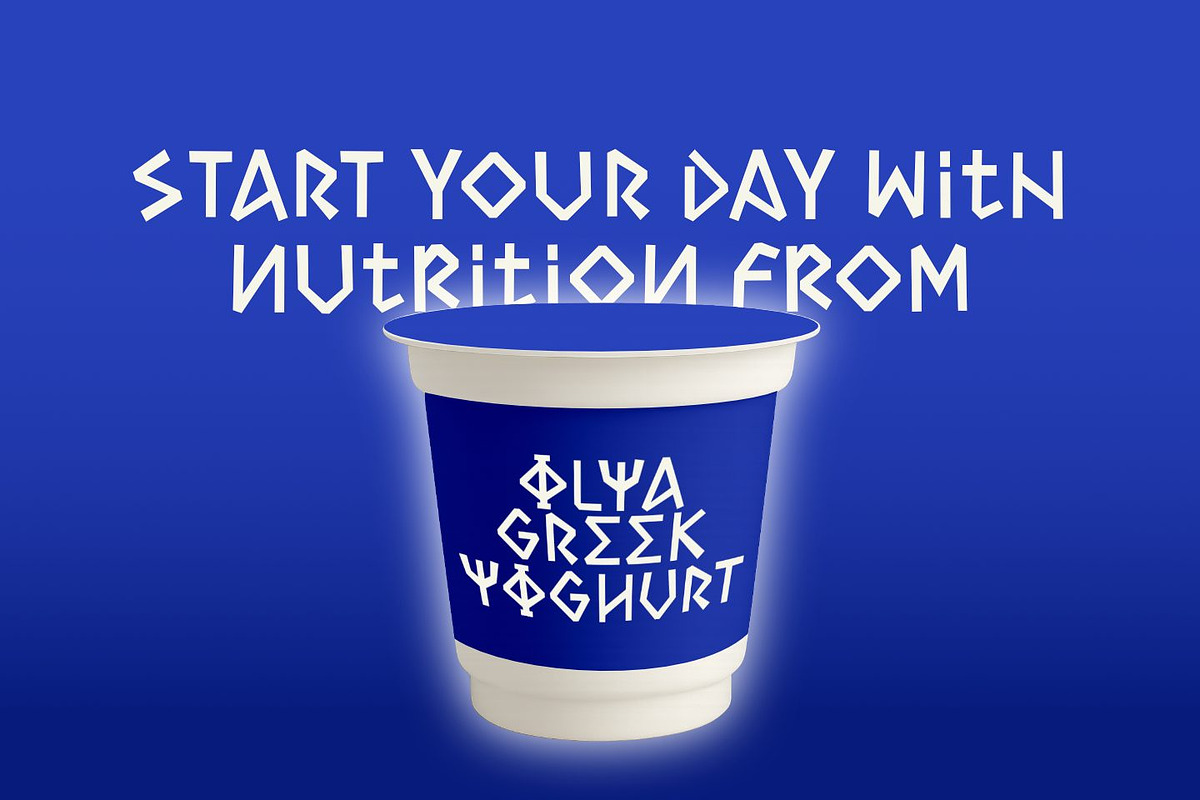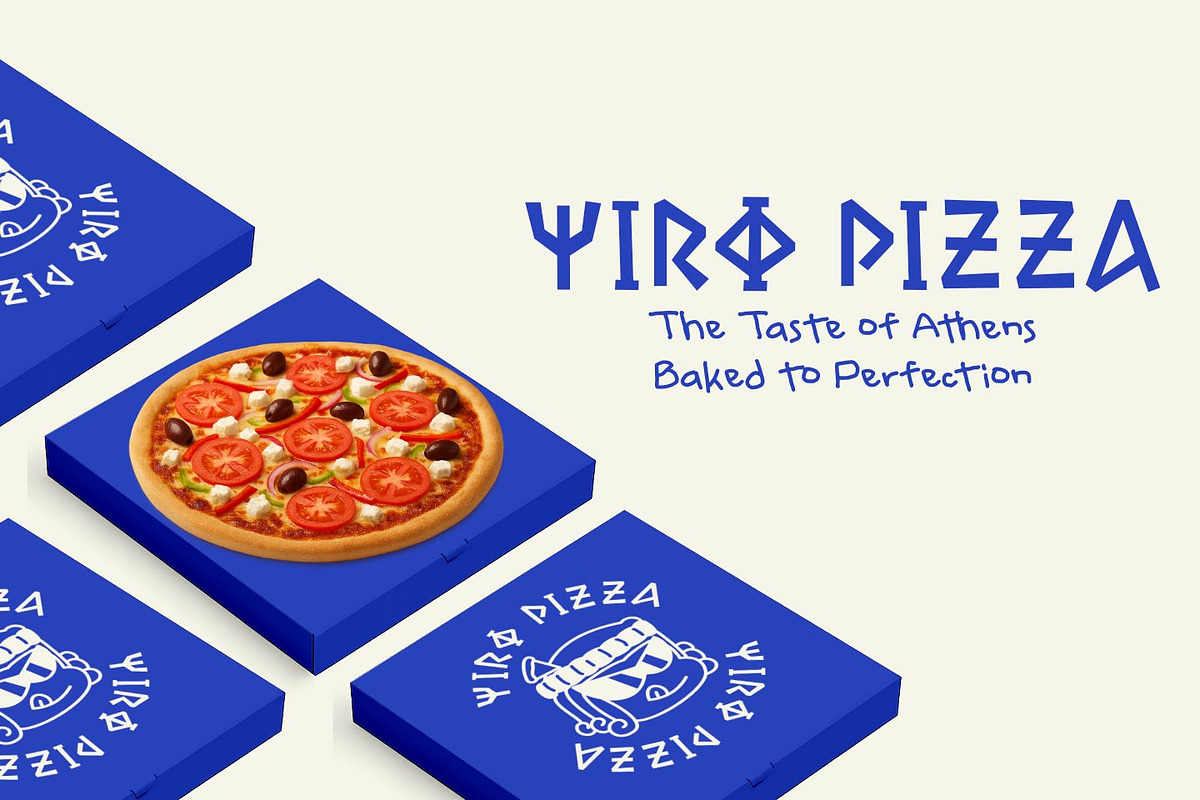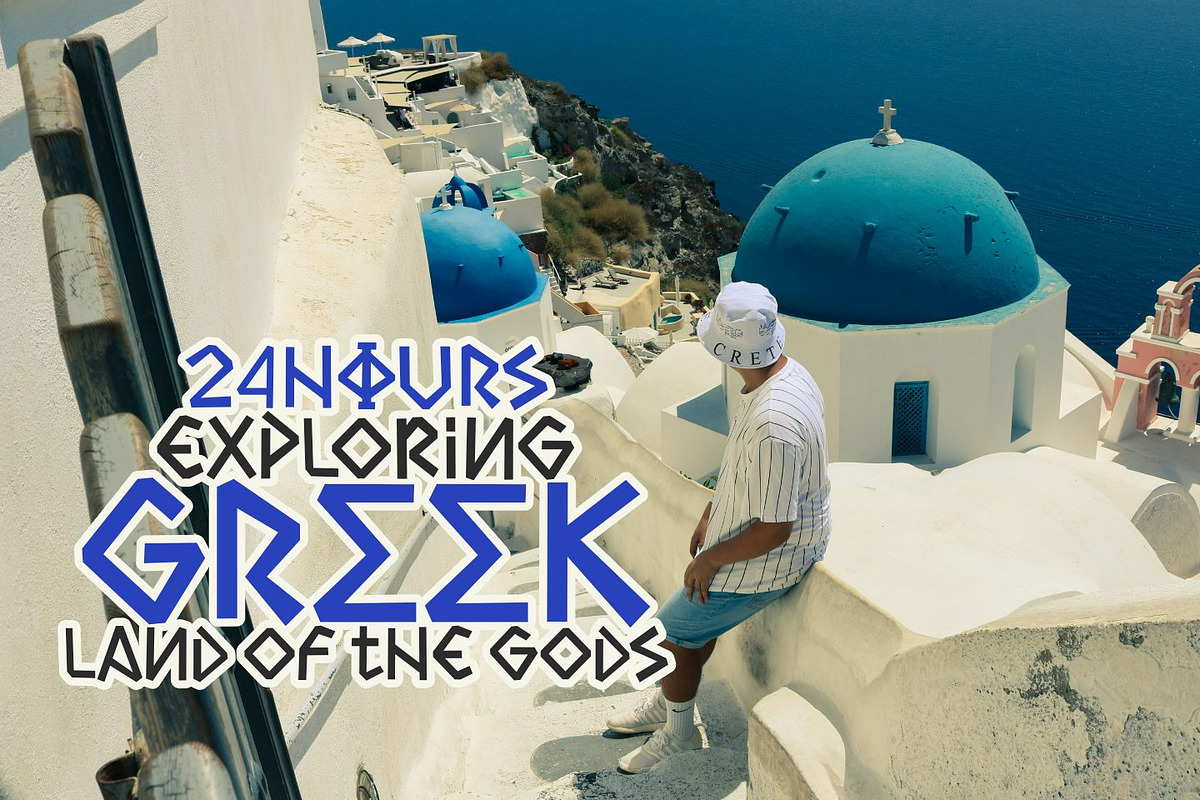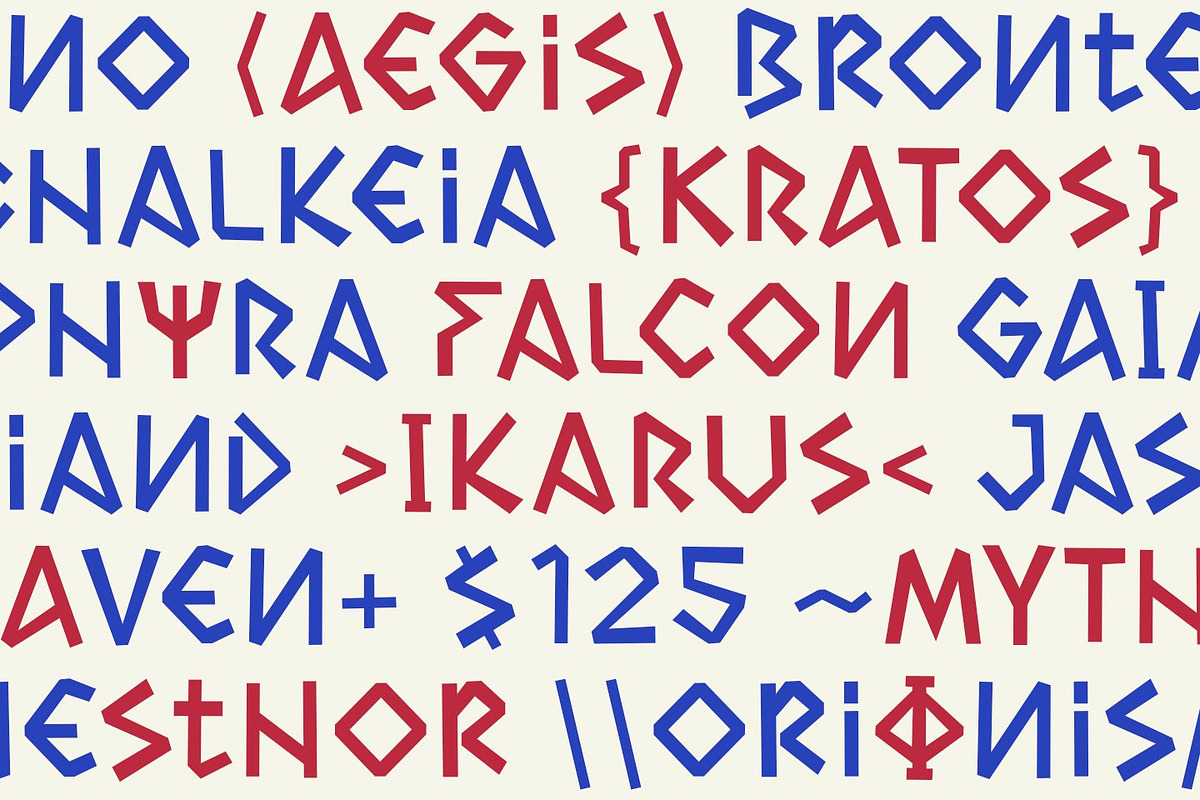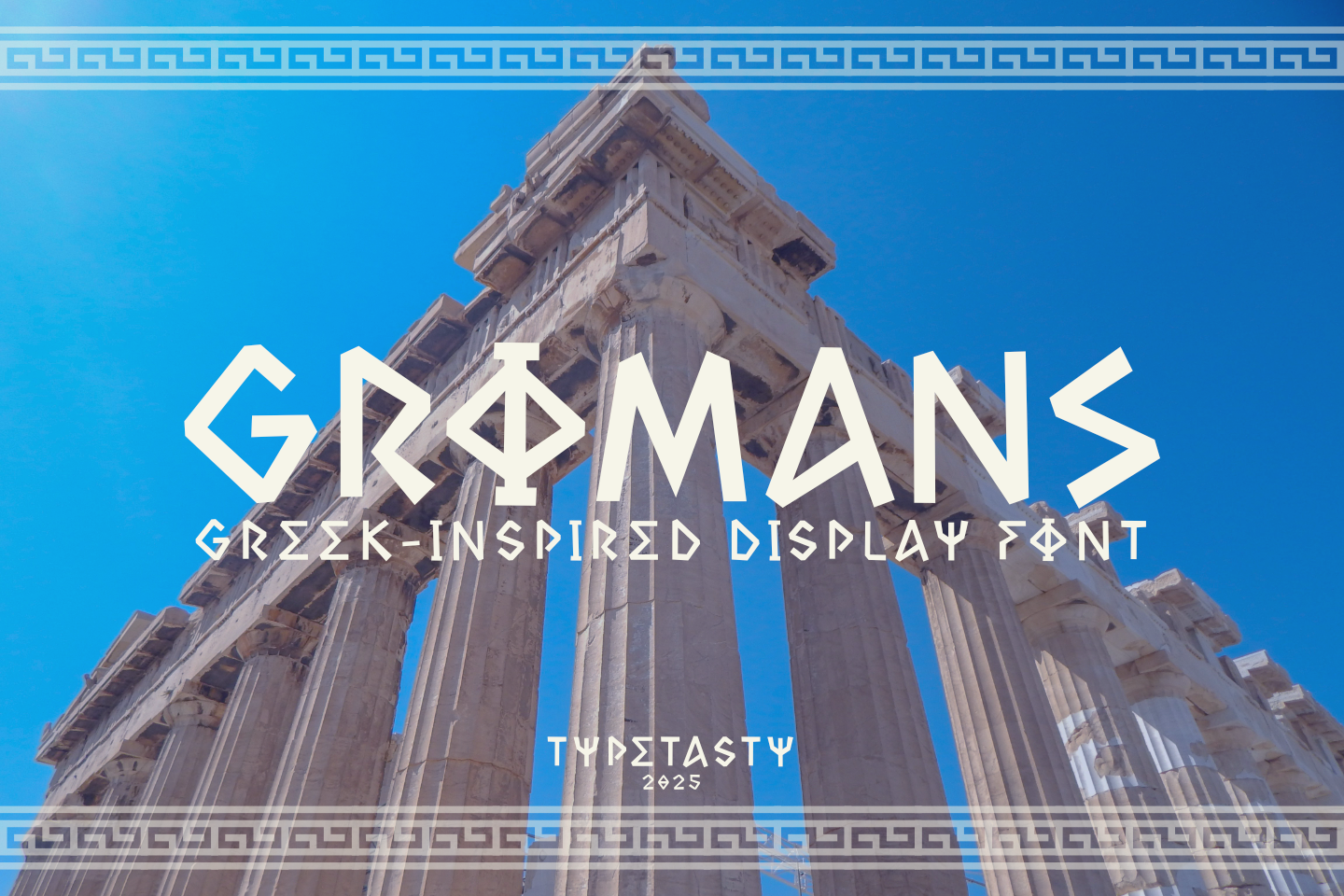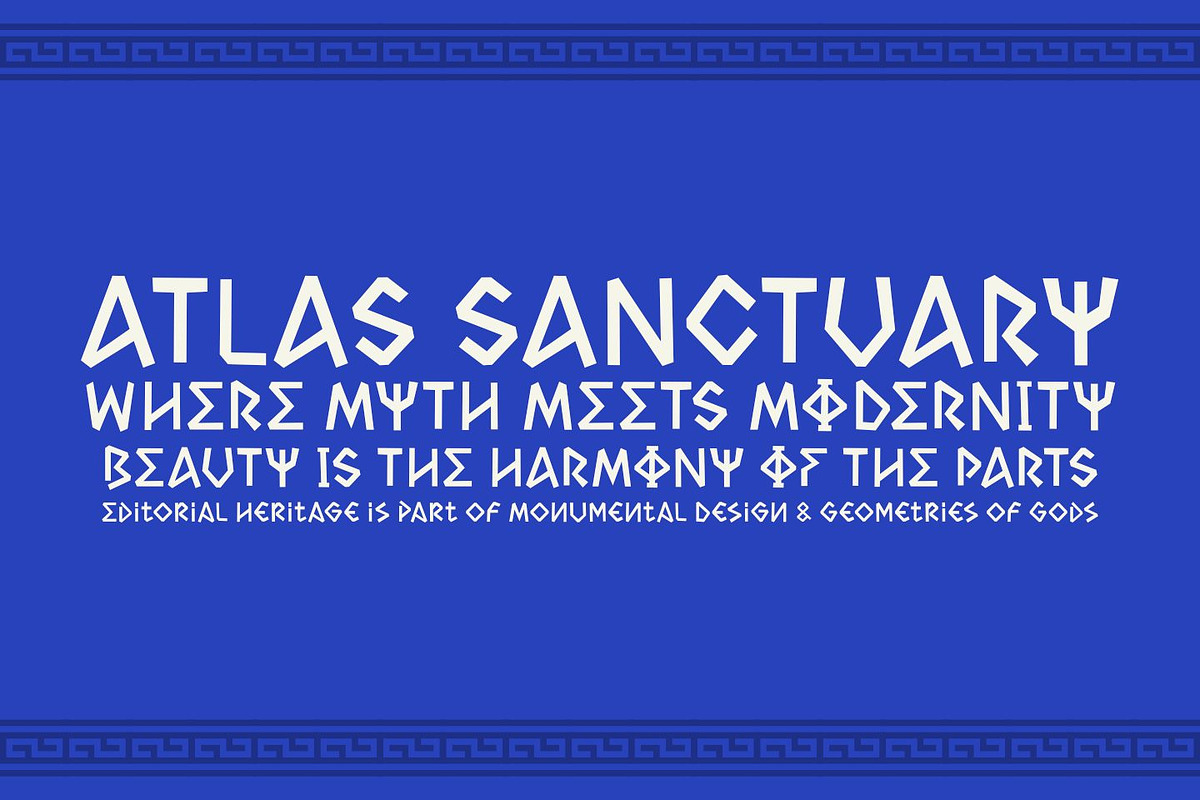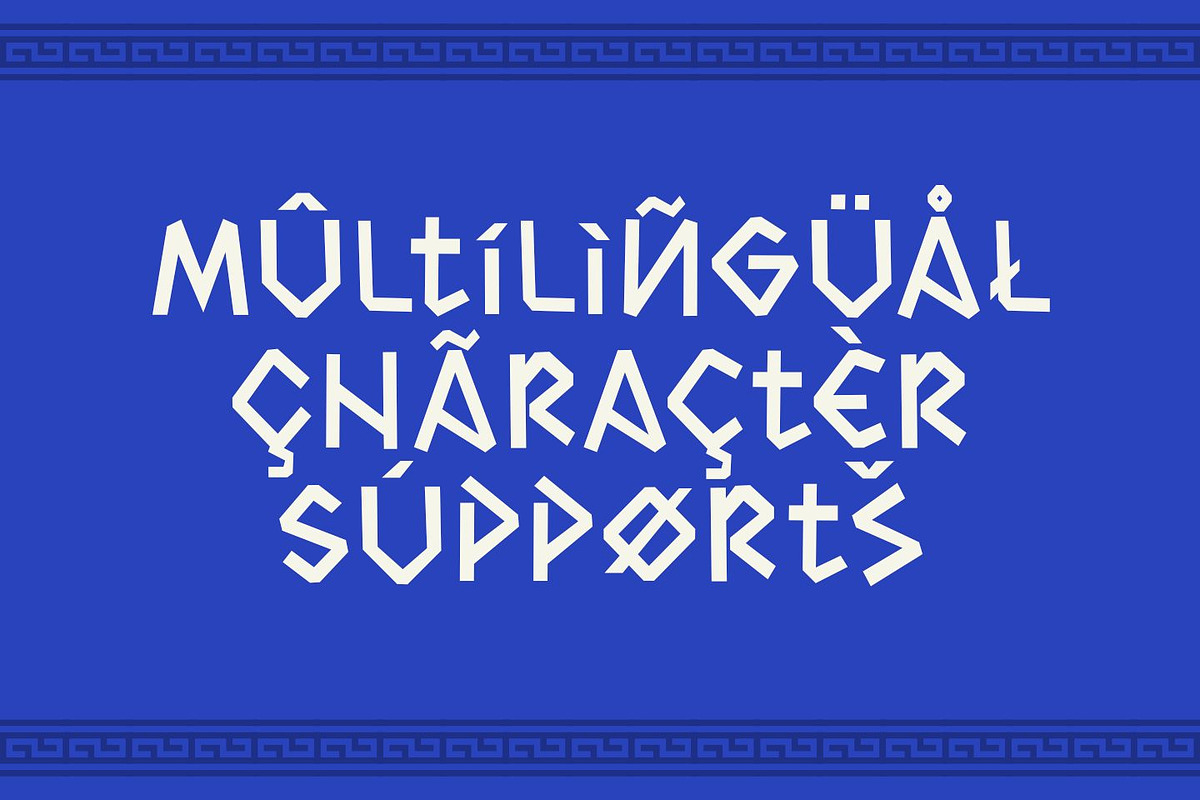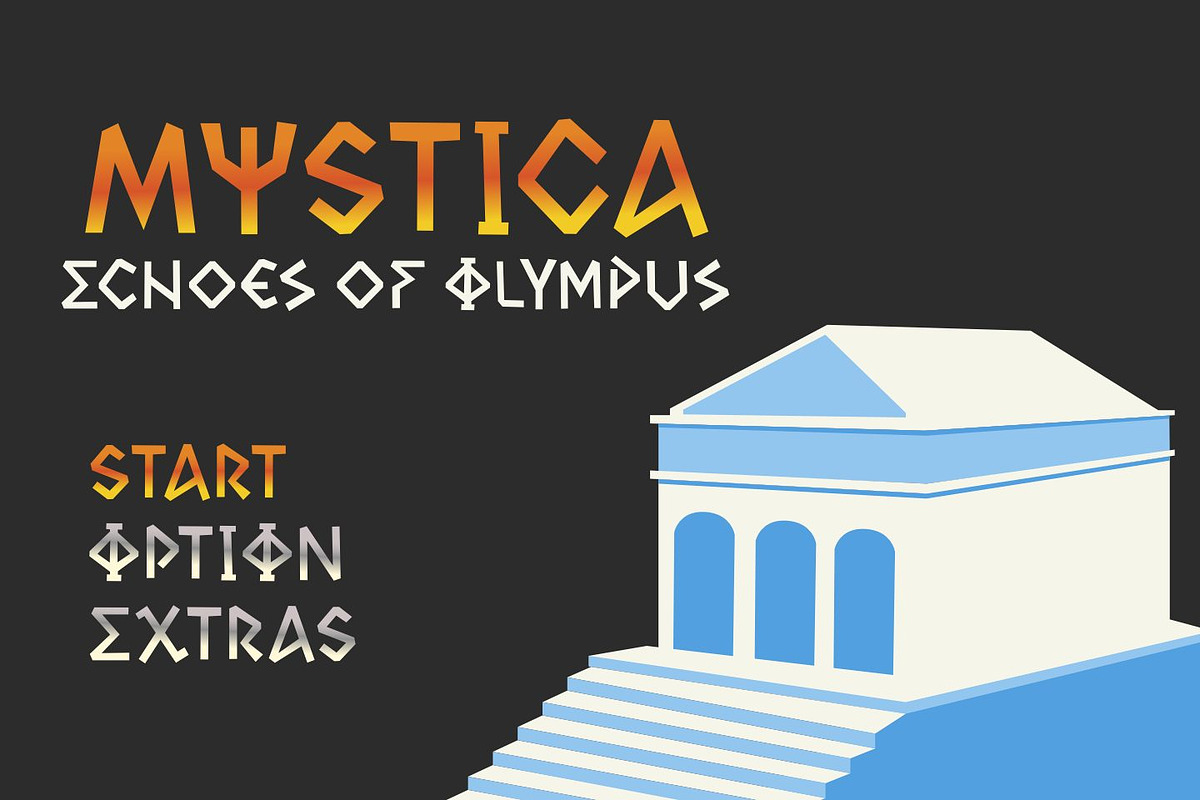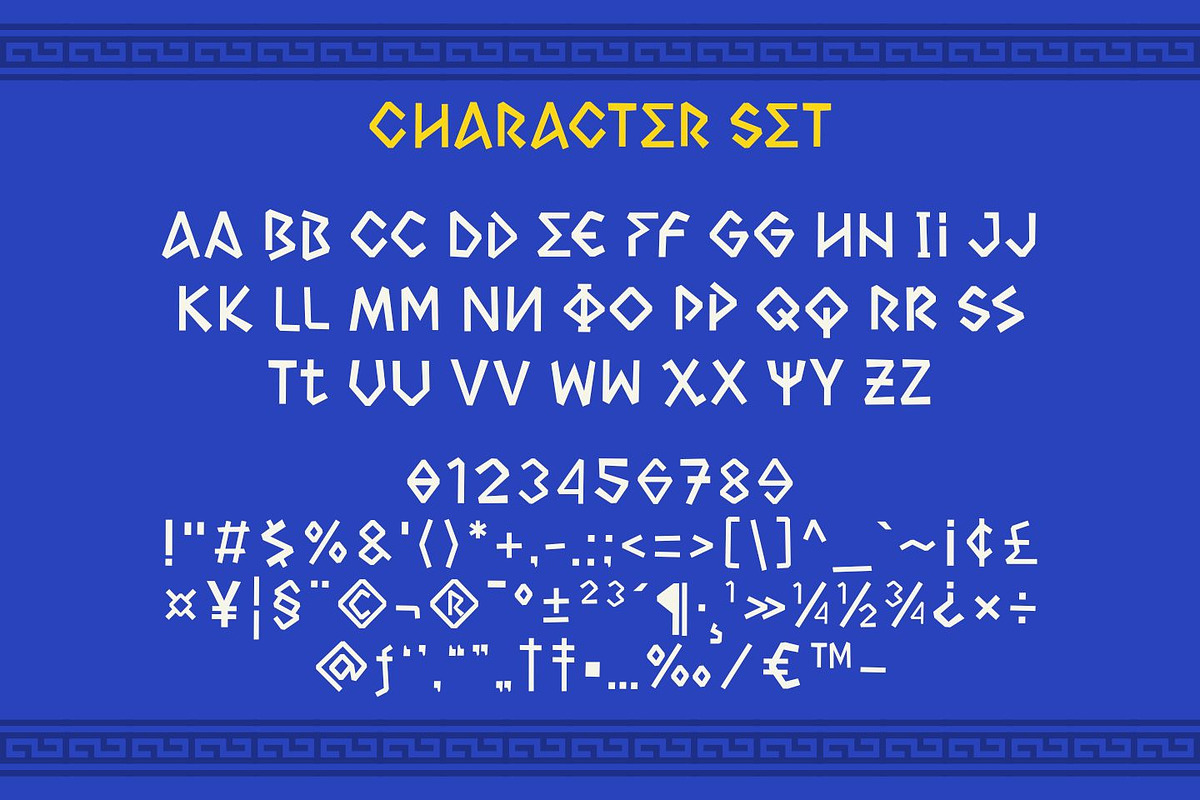
GROMANS – Modern Greek Display Font
GROMANS is a bold Greek-inspired display font designed for creatives who want to blend ancient elegance with modern design. Its geometric shapes and monumental style make it perfect for logos, posters, fashion branding, editorial layouts, and product packaging. Inspired by the timeless beauty of Greek architecture and mythology, GROMANS delivers a powerful and stylish typeface that elevates any project. Available in OTF, TTF, and WOFF, it’s ready to bring a mythic touch to your next design.
GROMANS is a Greek-inspired display font that blends the power of ancient letterforms with modern geometric balance. The strong angular shapes give it a bold and monumental presence, while subtle design details make it perfect for contemporary creative use.
- Style & Energy: Bold, mythic, timeless, and sophisticated.
- Market Vibe: Perfect for branding, fashion, editorial covers, social media graphics, restaurant menus, and luxury packaging.
- Letterform Structure: Geometric, sharp-edged, angular display with a Greek-inspired aesthetic.
- Best Use Cases: Logos, posters, book covers, fashion branding, product packaging, video titles, and event promotions.
Step into the world of ancient legends and timeless elegance with GROMANS. Designed to capture the majesty of Greek heritage, this font makes every word look epic, powerful, and unforgettable. Whether you’re building a bold brand or a striking editorial layout, GROMANS is your gateway to modern design with a mythic soul.
- Greek-Inspired Forms – Echoes mythology, architecture, and heritage.
- Bold & Monumental Look – Makes a strong impression in any design.
- Modern Geometric Twist – Classic elements with a contemporary edge.
- Versatile Applications – From branding to posters, packaging to fashion.